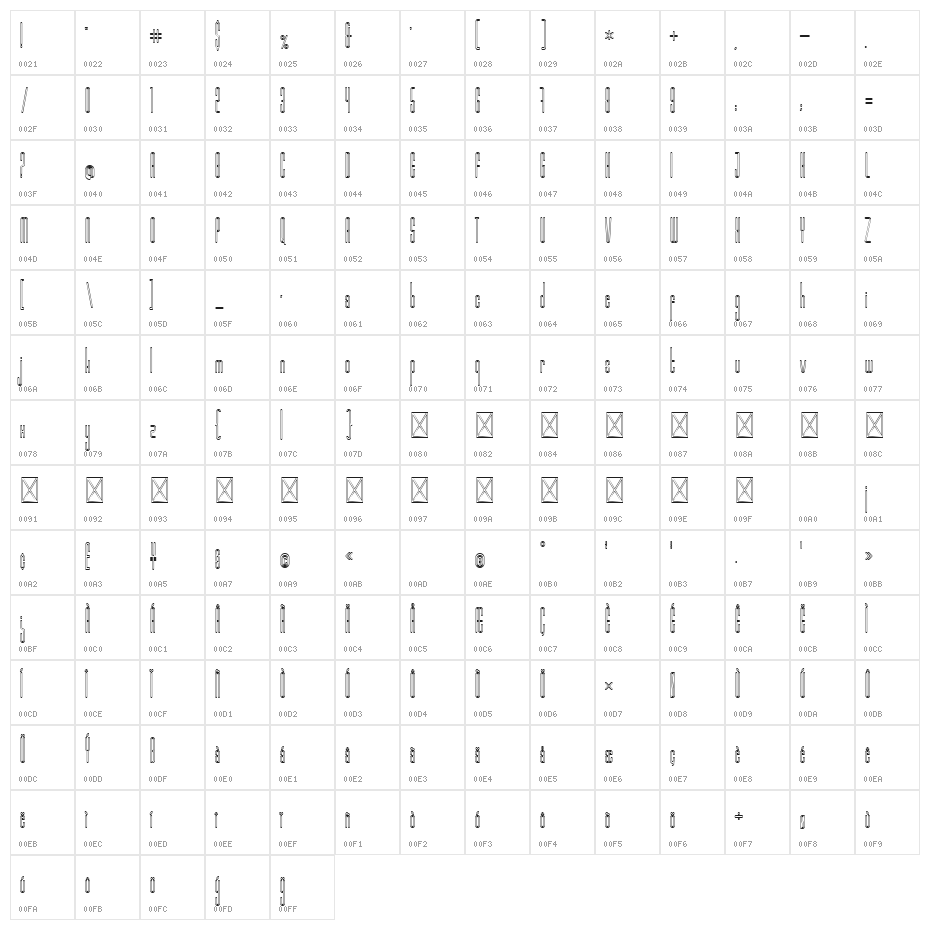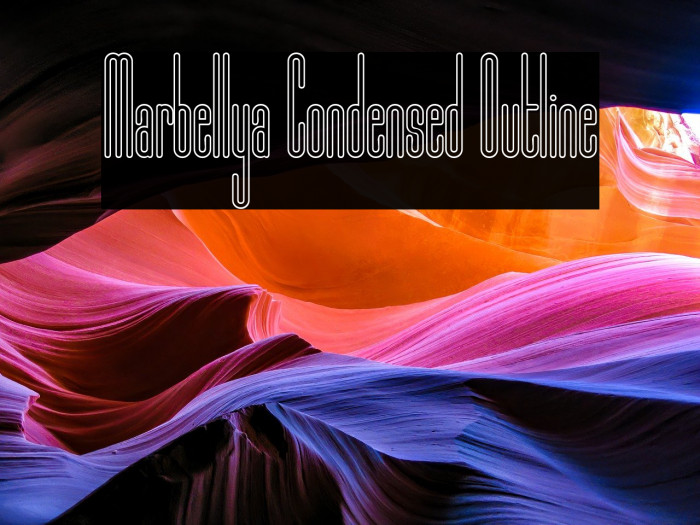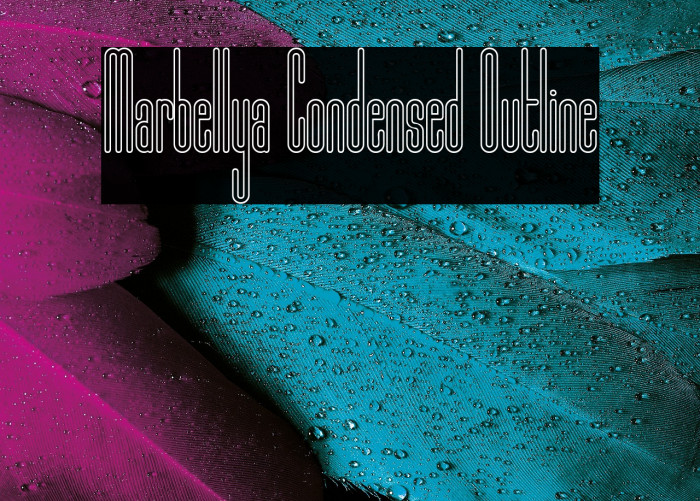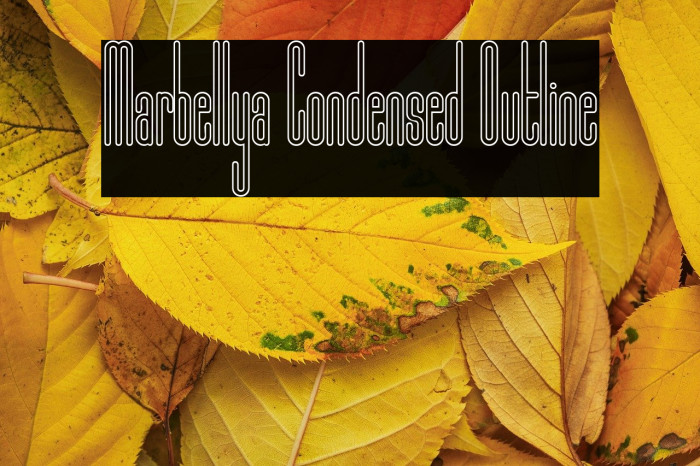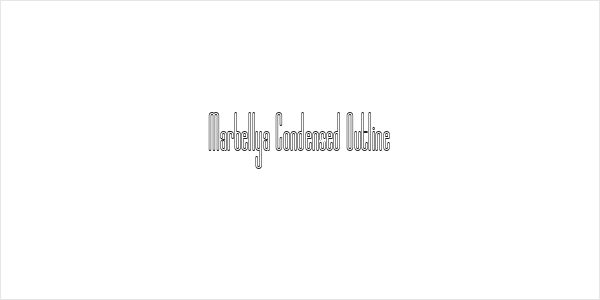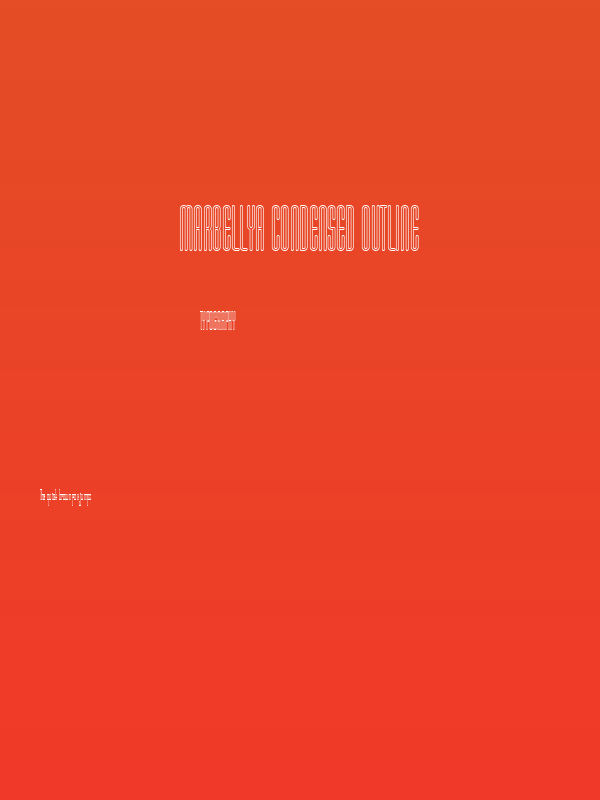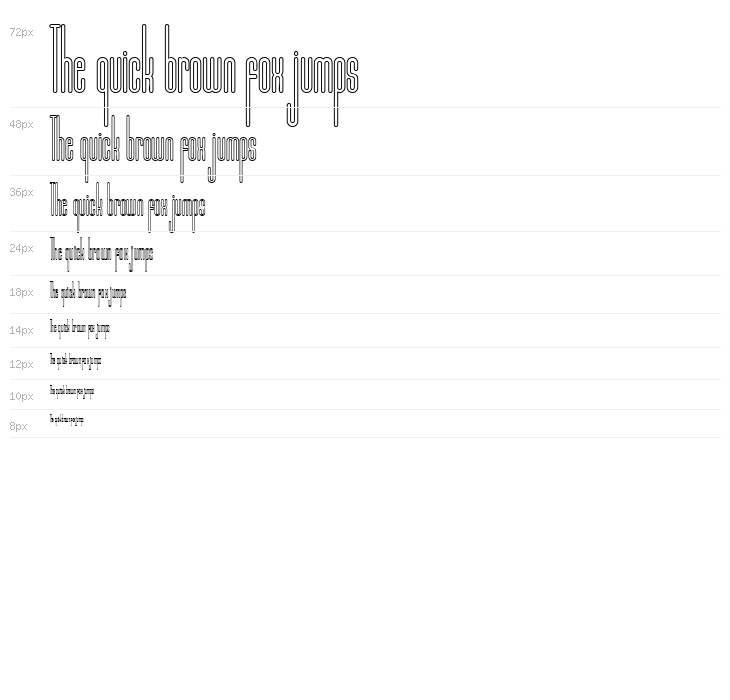
Marbellya Condensed Outline Font
Marbellya Condensed Outline Description
This font features a unique outline style with a condensed form, giving it a modern and sleek appearance. The characters are designed with a double-line structure, creating an open and airy feel. The uppercase and lowercase letters maintain a consistent height, enhancing readability while adding a touch of elegance. The numbers and special characters follow the same outline design, ensuring uniformity across all elements. This font is ideal for projects that require a contemporary and stylish look, such as branding, posters, and digital media.